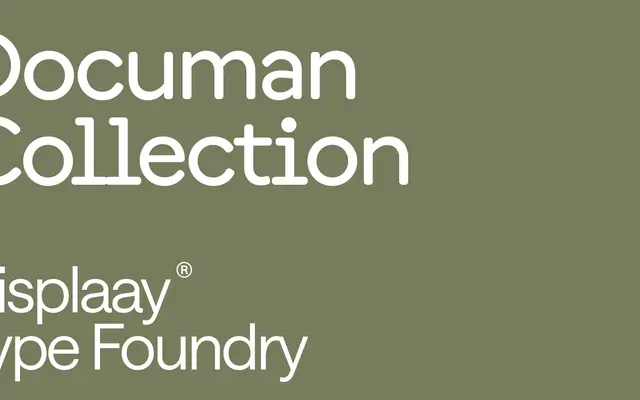
A semi-rounded proportional typewriter family in three subfamilies and 27 styles, built around an office-document aesthetic and offered as a variable font across a single weight axis.
Rooted in the visual language of bureaucratic paperwork, the collection spans three subfamilies — Documan, Documan CNT and Documan STC — each running nine styles from Thin to Heavy. The semi-rounded forms soften the machine-stamped quality typical of typewriter faces, giving it a degree of warmth without losing the deadpan, clerical character that drives its identity. A single-axis variable font is included, covering the full weight range in one file.
Described explicitly as a proportional typewriter tool with semi-rounded forms; the three subfamilies (Standard, CNT, STC) all share typewriter DNA, and the aesthetic is rooted in office document culture rather than code or technical mono conventions.